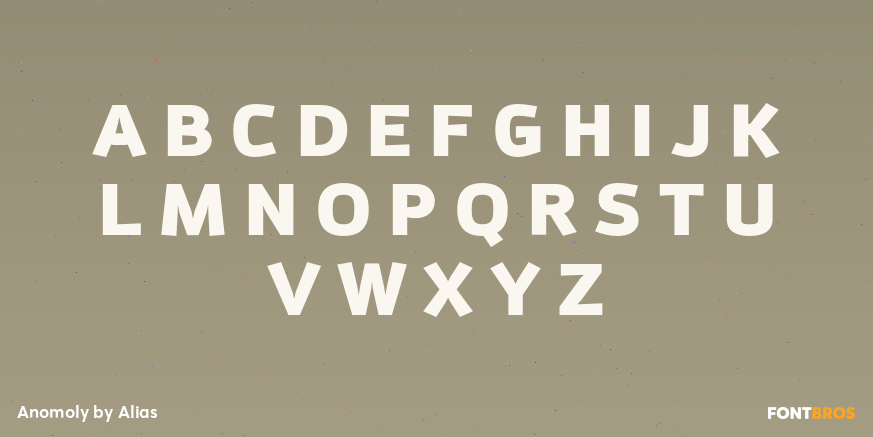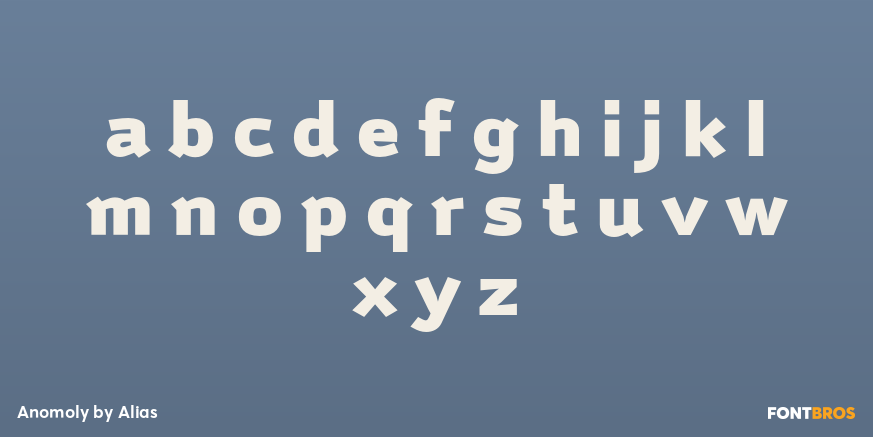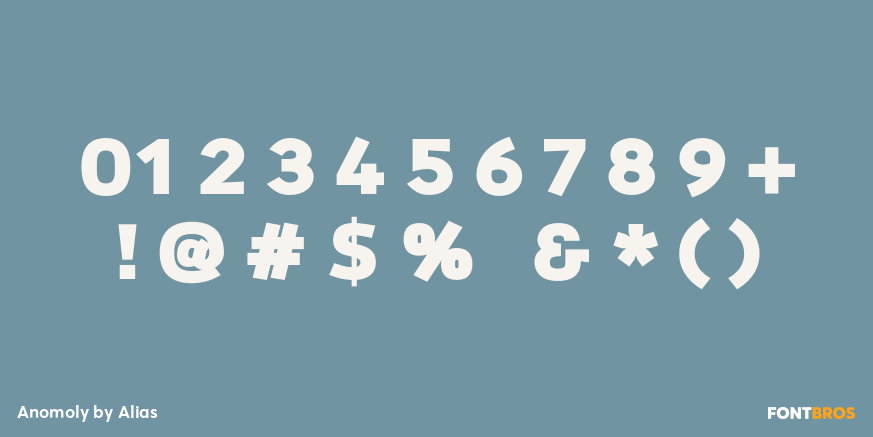
Anomoly
Font Family by Alias
Buy NowAnomoly is a sans serif family from Alias with a clean, contemporary voice and enough range to move from understated to emphatic. Its straightforward structure gives it a crisp, modern feel, while the mix of upright and italic styles adds flexibility for branding systems, editorial layouts, and display-driven design.
The family includes 10 styles: Light, Regular, Medium, Bold, and Black, each with matching italics. That spread makes it easy to build hierarchy across logos, packaging, posters, signage, and social graphics while keeping the overall look consistent.
If you need a versatile sans that can shift from calm and readable to bold and graphic, this family offers a practical set of weights for design work that wants a polished, modern edge.